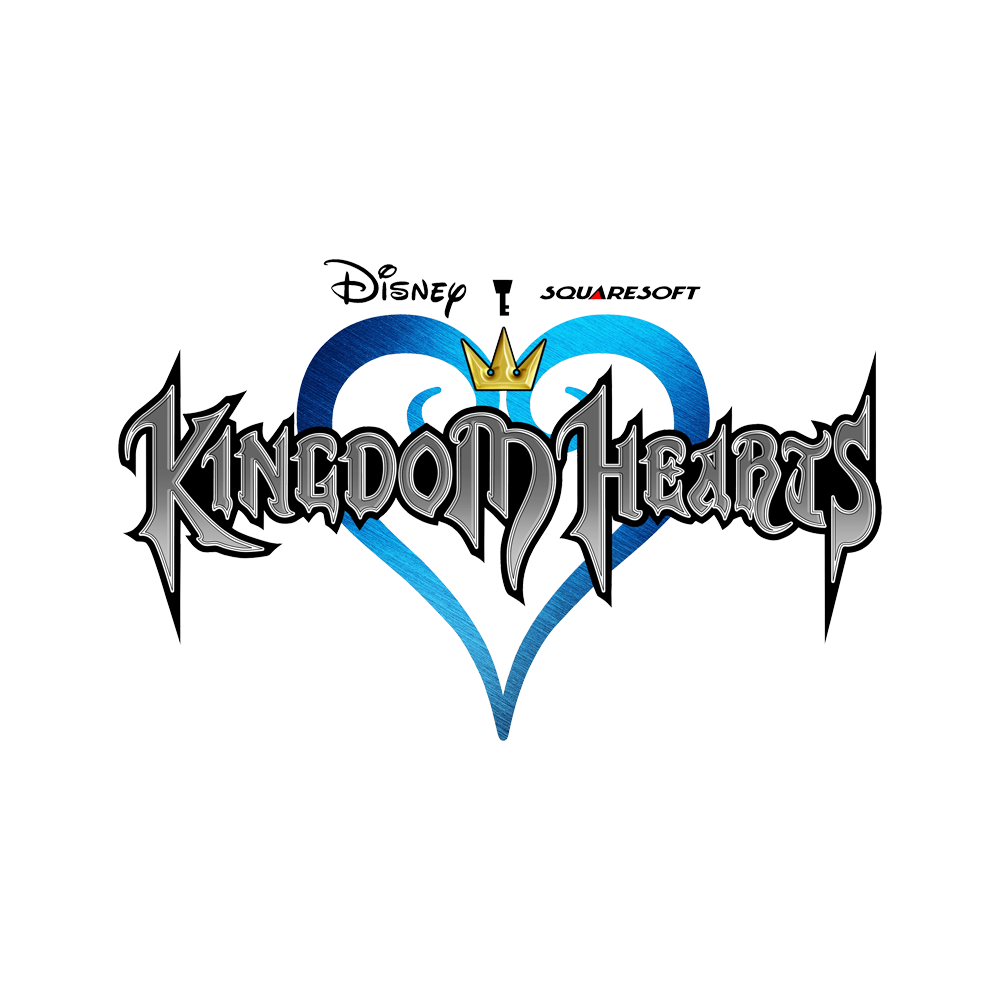
Kingdom Hearts Font
LogoKingdom Hearts is a video game series that merges Disney and Final Fantasy characters and worlds. It follows a young boy, Sora, who fights dark forces to restore peace across various realms.
The Kingdom Hearts logo was replicated as Kingdom Hearts font by Eliot Truelove.